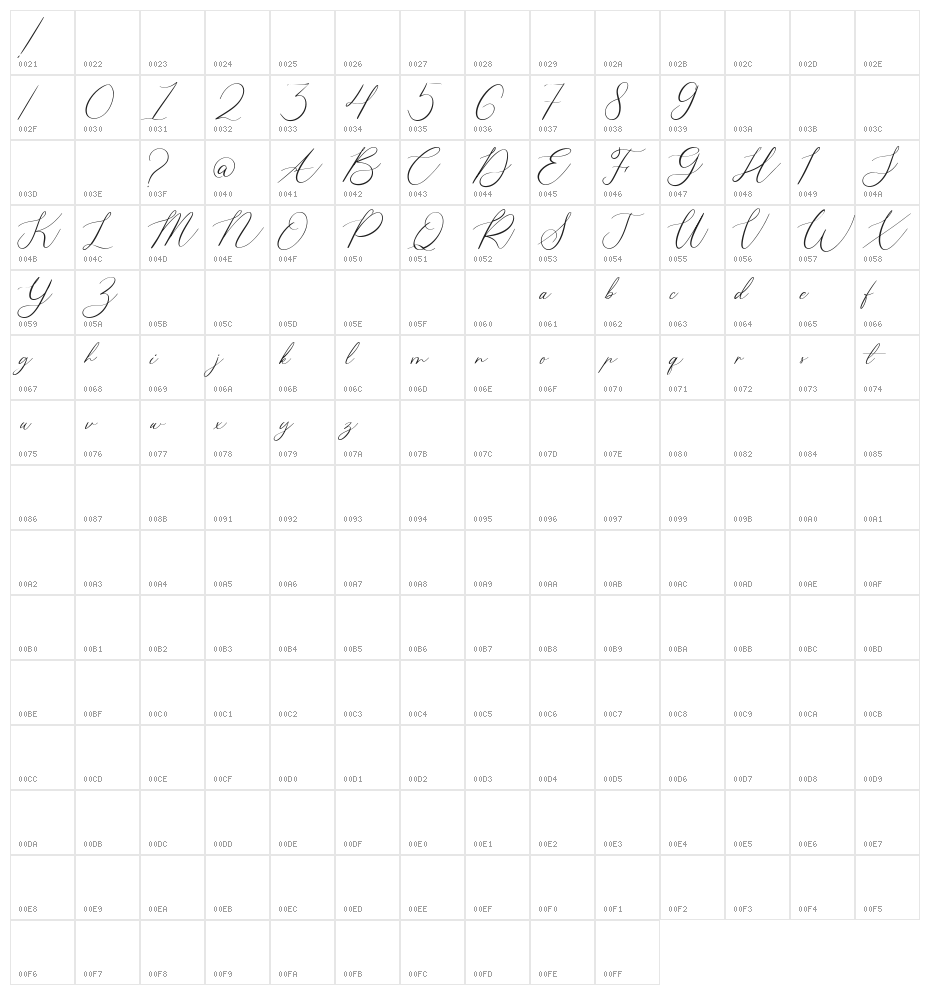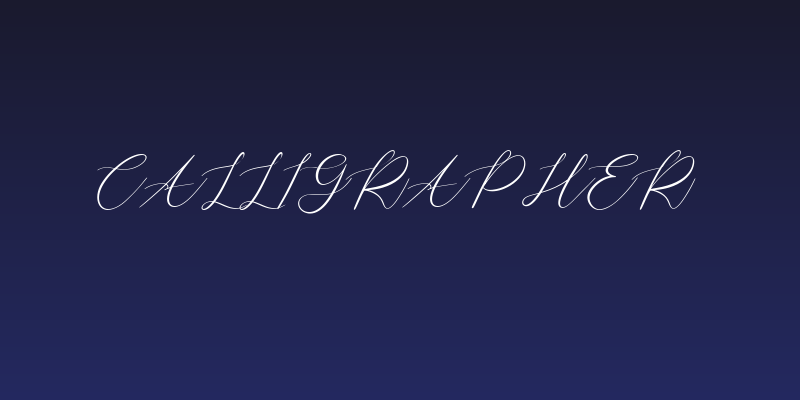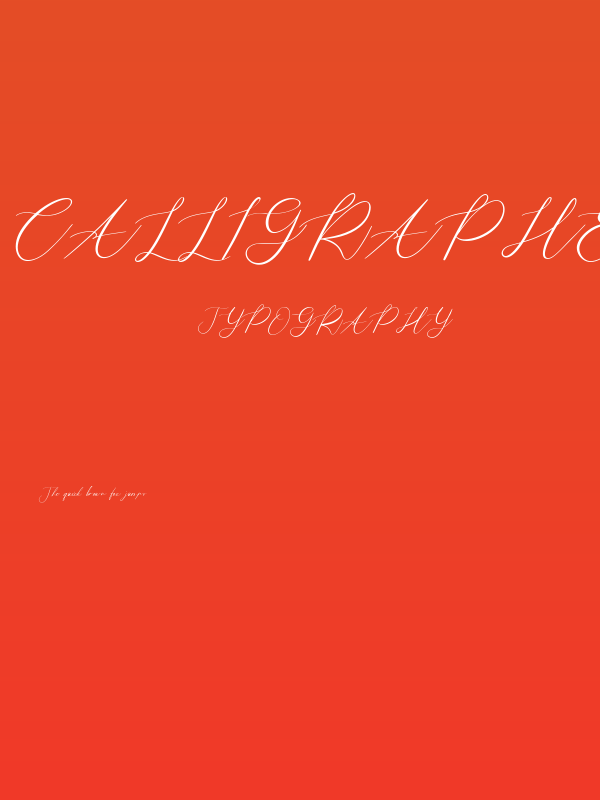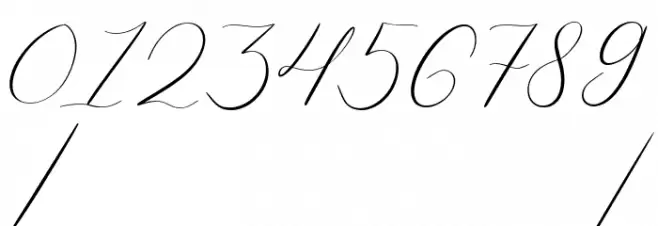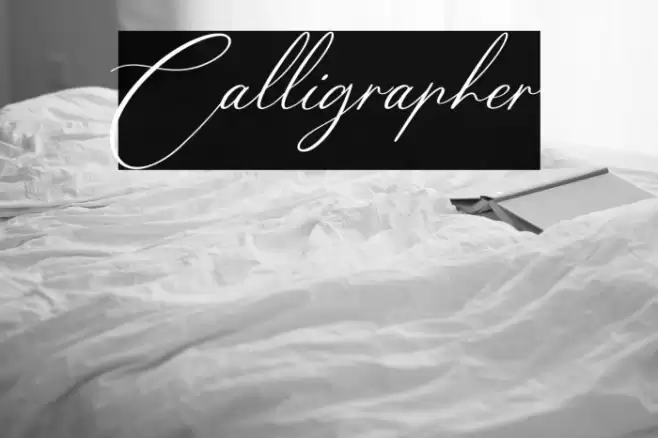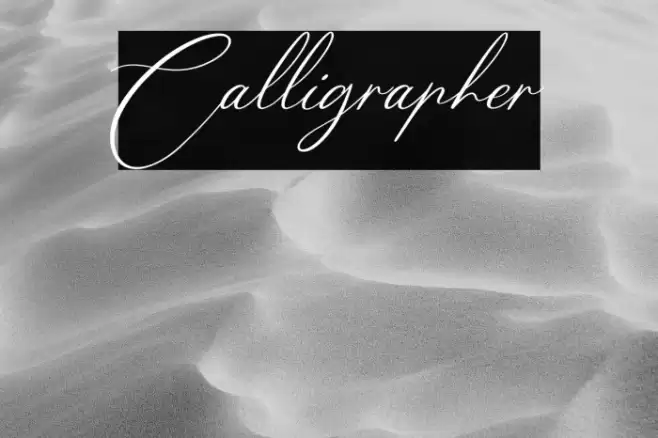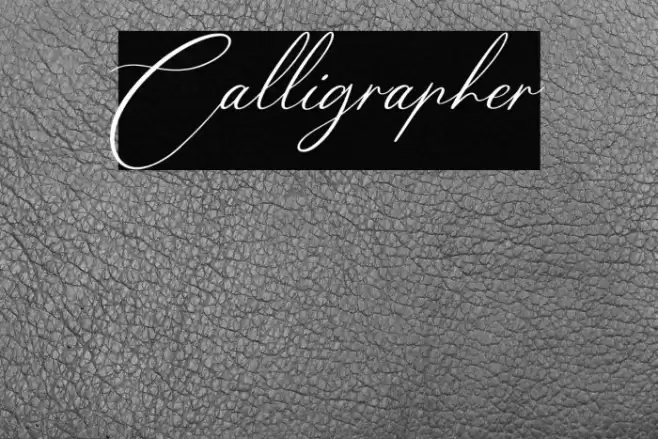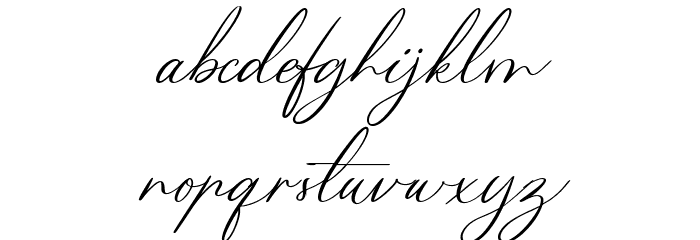
Calligrapher Font
Calligrapher Description
This elegant script font features a flowing, cursive style with graceful, sweeping lines and delicate curves. The uppercase letters are tall and slender, with a sophisticated flair that adds a touch of refinement. The lowercase letters maintain a consistent flow, enhancing readability while preserving an artistic touch. The numerals are designed with the same fluidity, ensuring a cohesive look across all characters. This font exudes a sense of elegance and sophistication, making it ideal for formal invitations, branding, and decorative purposes.
| Overall Style | Elegant |
| Use Case | Invitations, Branding, Decorative |
| Proposed Projects | Ideal for wedding invitations, elegant branding, decorative signage, and formal event programs. |